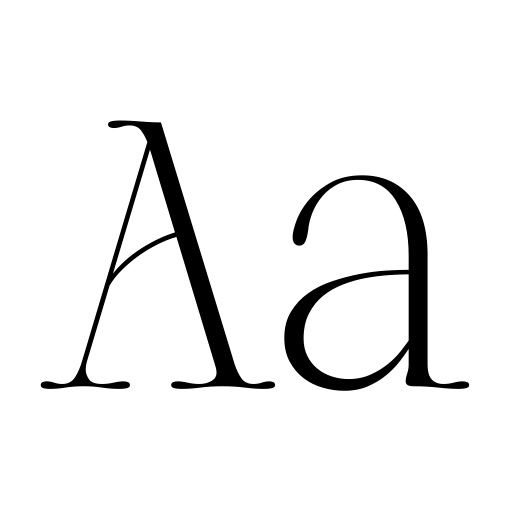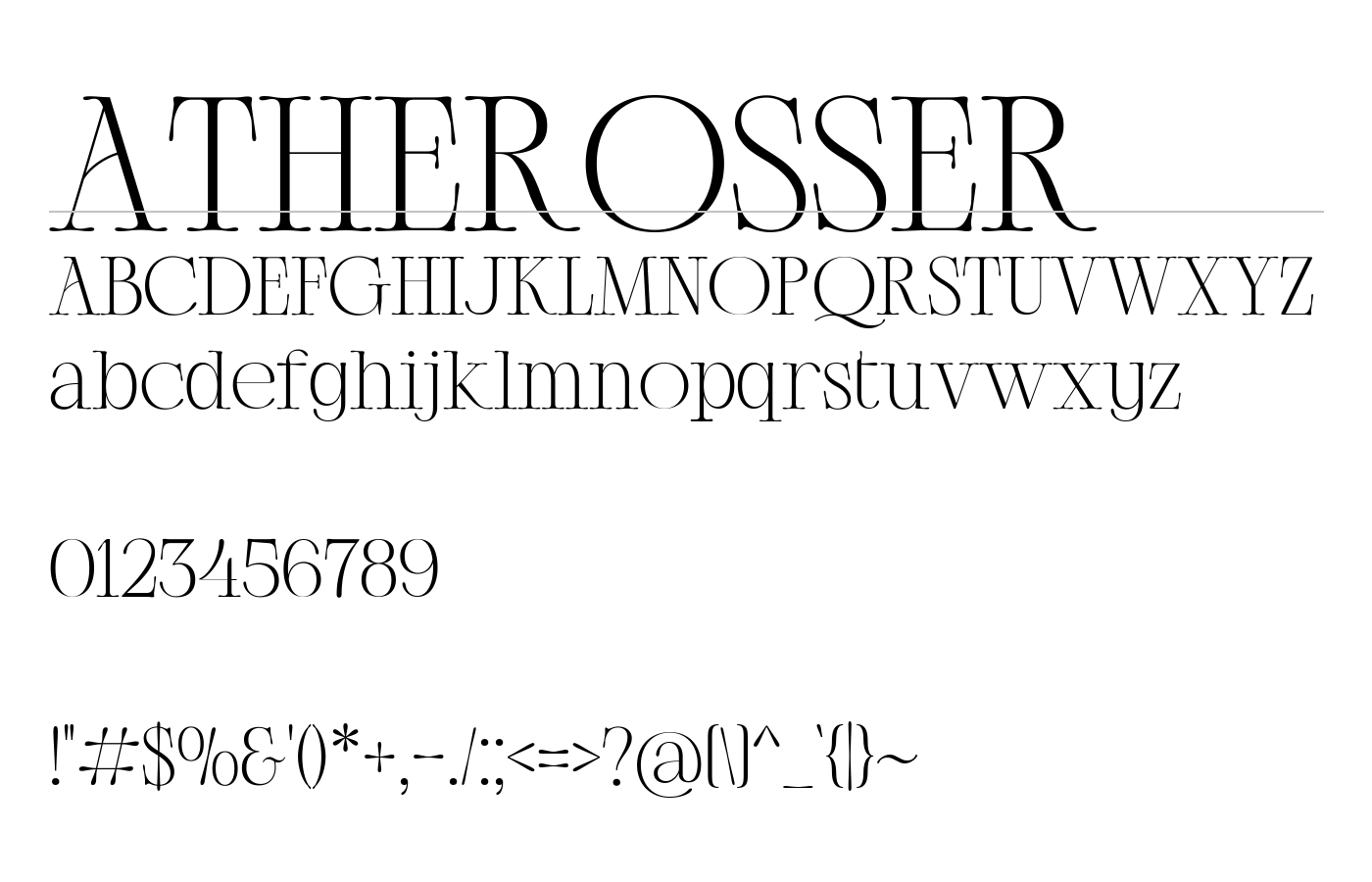
Atherosser is an elegant serif font characterized by its high contrast between thin and thick strokes and slender, slightly condensed letterforms. Its refined serifs and delicate curves give it a sophisticated, classic feel perfect for luxury branding, editorial design, and stylish headlines. This font works best where a touch of timeless elegance and readability are desired, such as in fashion magazines, upscale logos, and refined packaging.
ATHEROSSER Font
About ATHEROSSER Font
| Font family | ATHEROSSER Font |
| Designer | Mokatype Studio 2022 - Adriansyah - Abdul Malik |